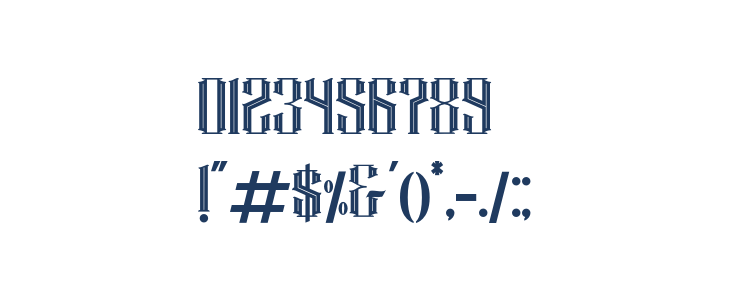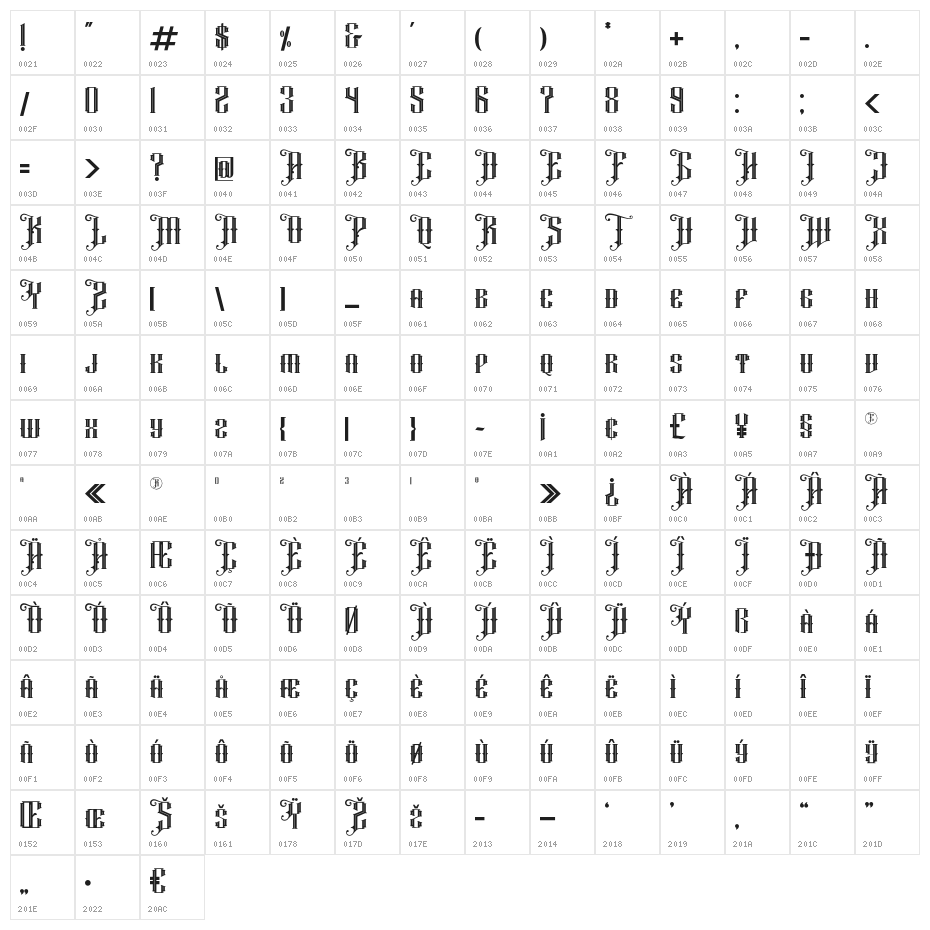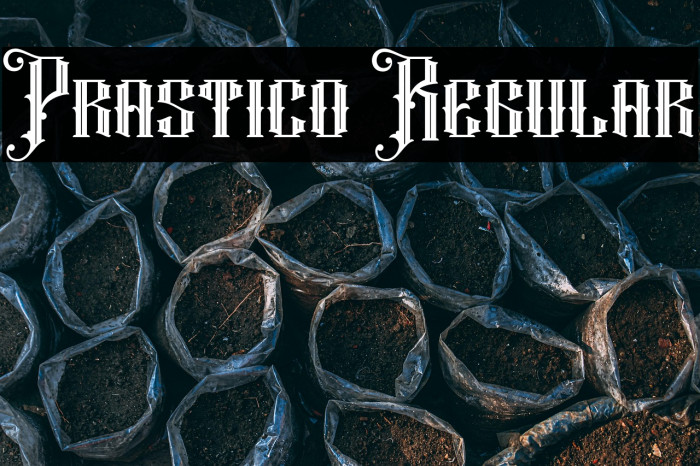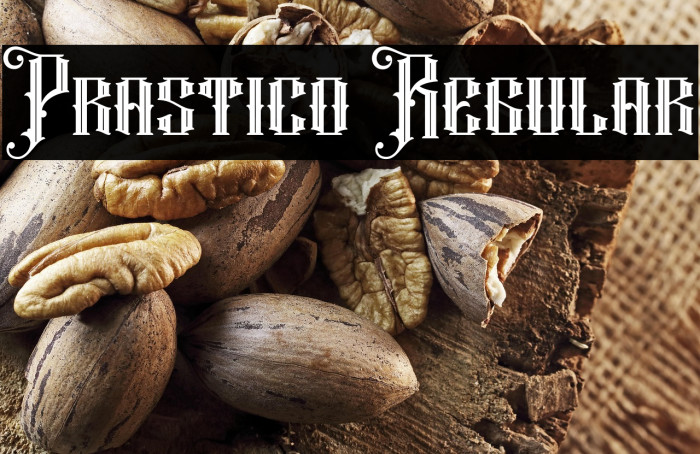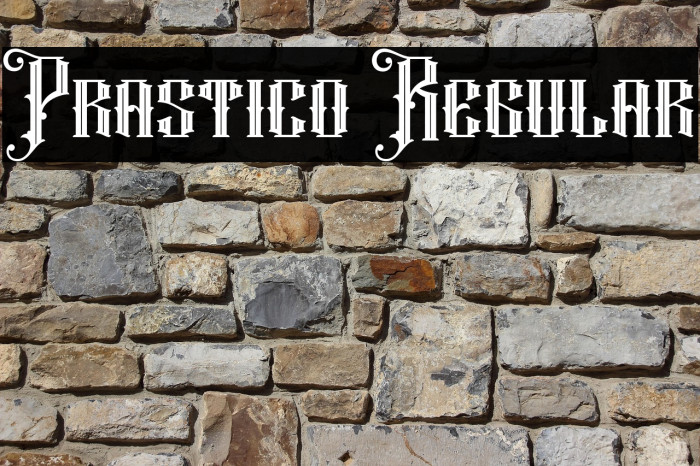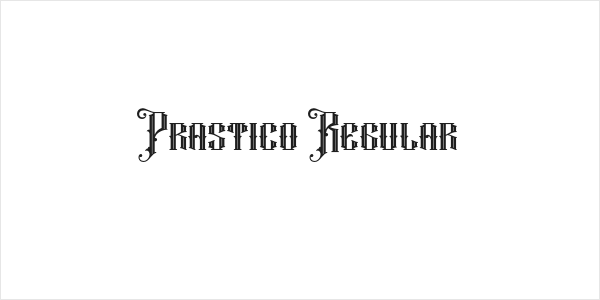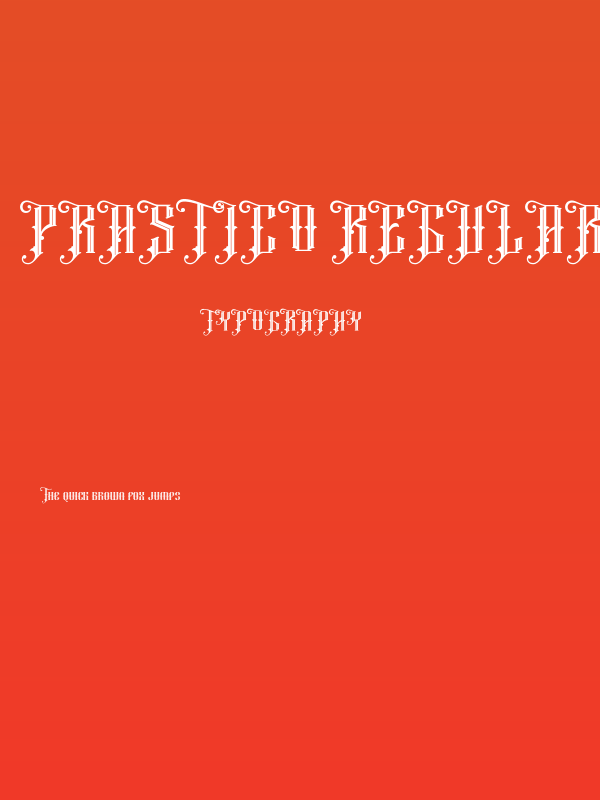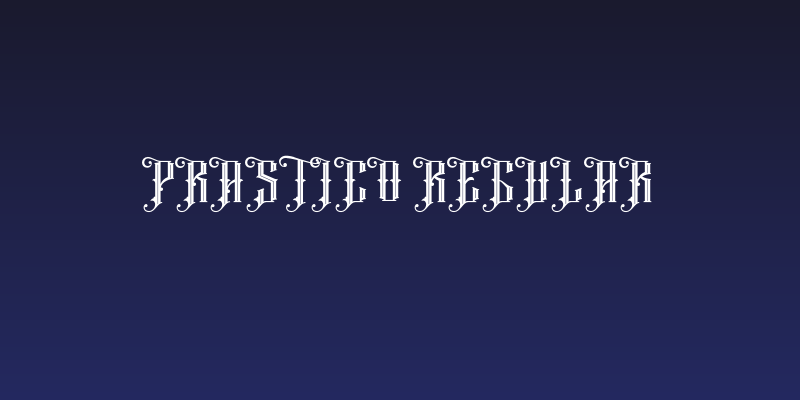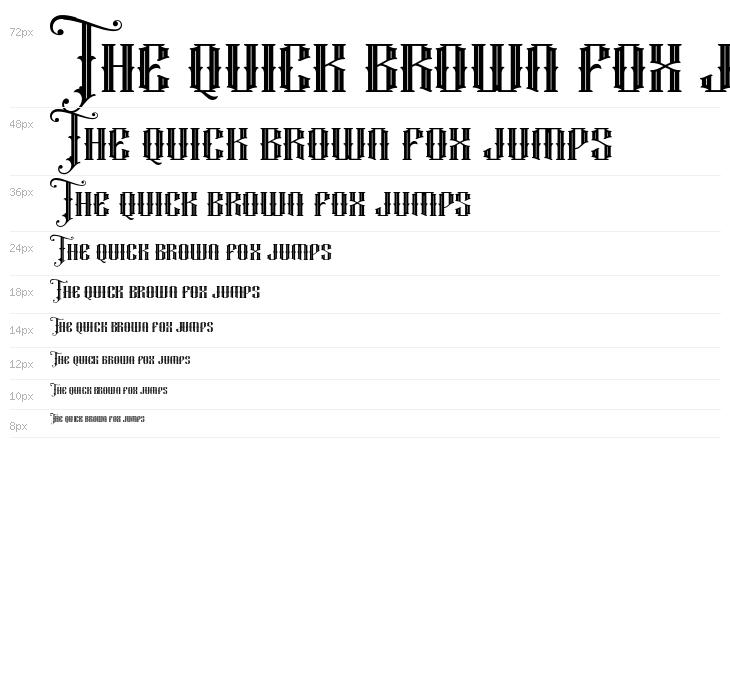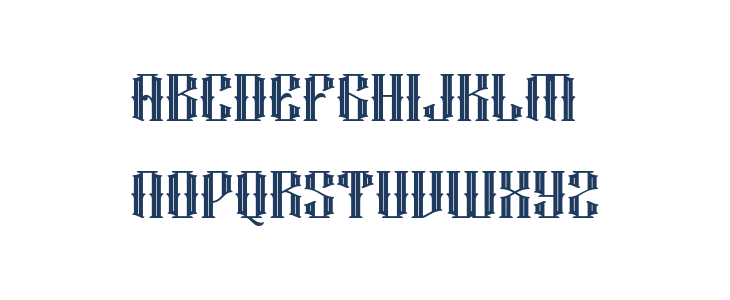
Prastico Regular Font
Prastico Regular Description
This font features a bold and intricate design with a strong decorative flair. The characters are highly stylized with ornate elements that give them a gothic and medieval appearance. The uppercase and lowercase letters maintain a consistent theme, with sharp angles and elaborate serifs that enhance the overall aesthetic. The numbers and special characters are equally detailed, ensuring a cohesive look across all elements. This font is ideal for projects that require a dramatic and eye-catching typeface, such as posters, logos, and branding materials.
| Proposed Projects | Ideal for posters, logos, branding, and any project needing a dramatic and eye-catching typeface. |